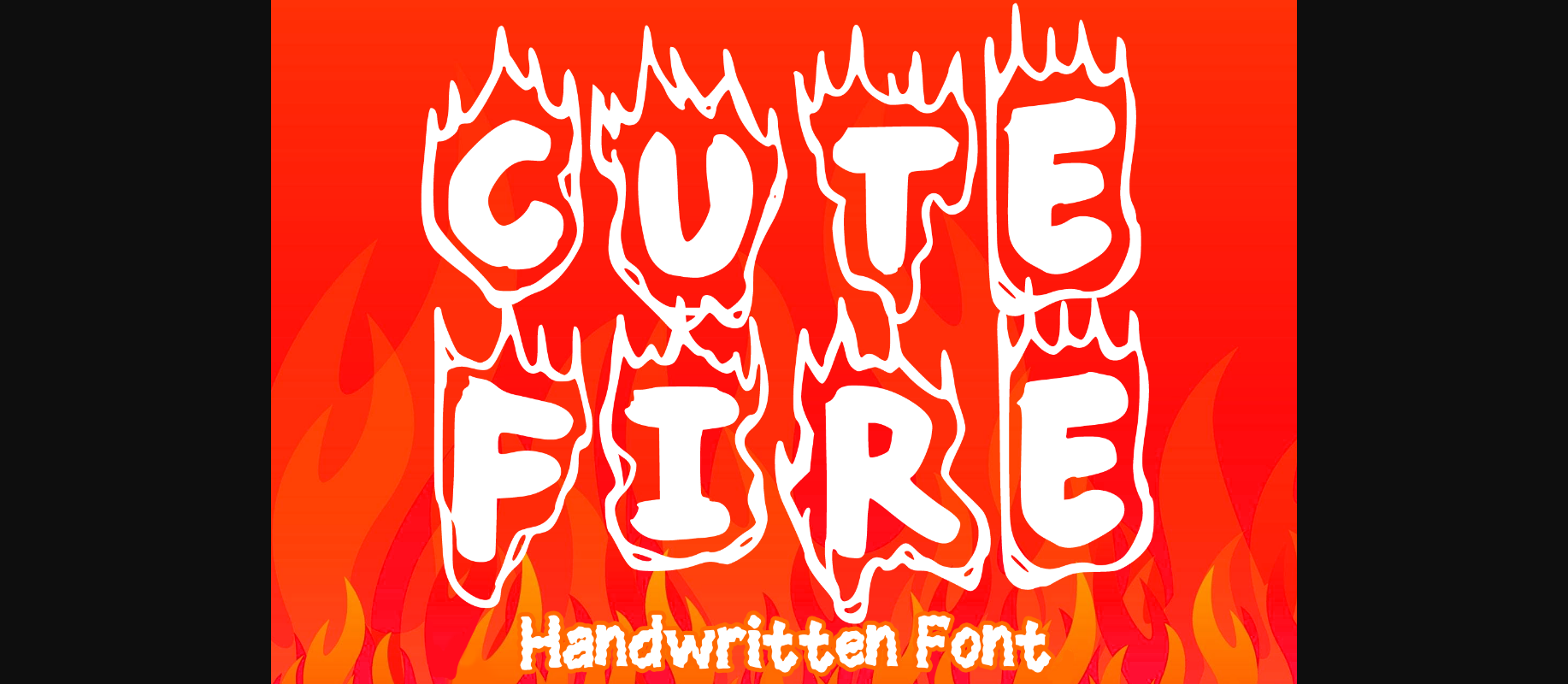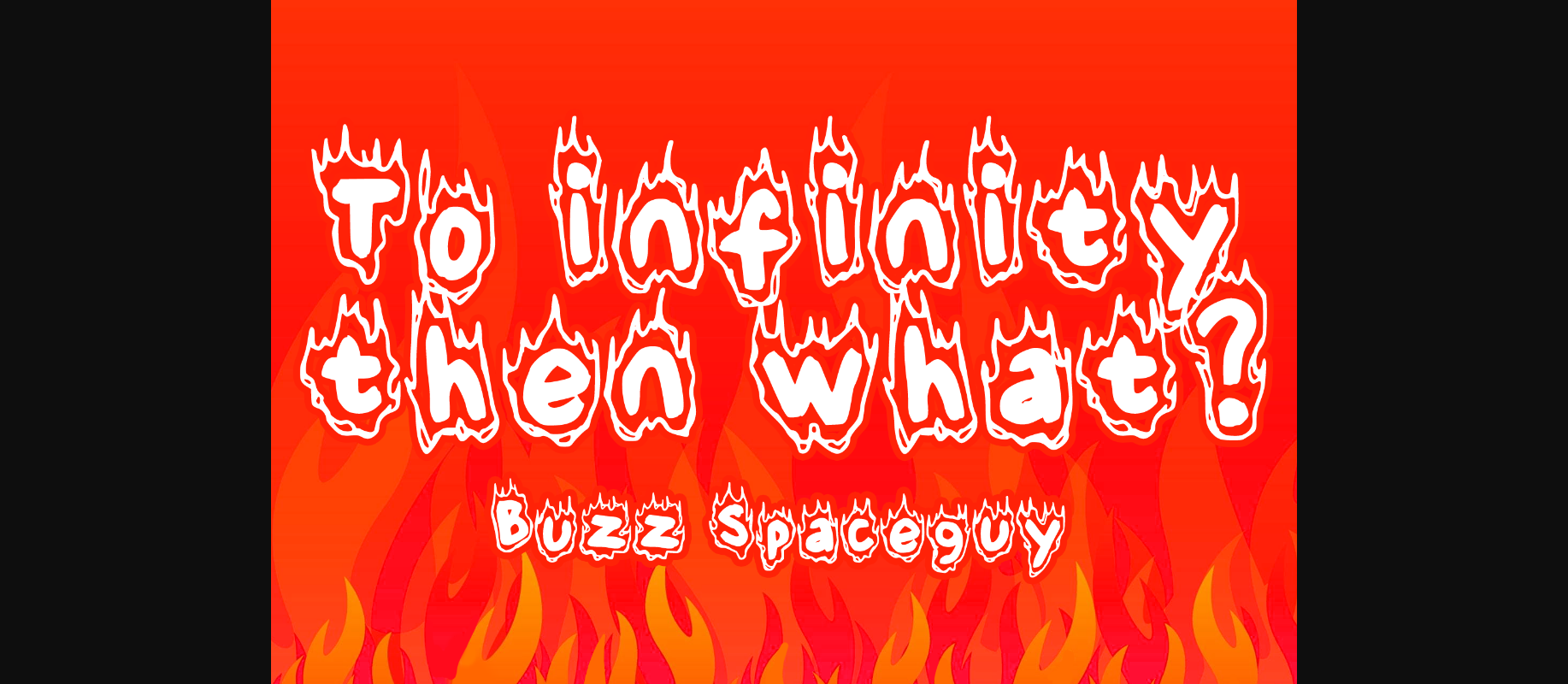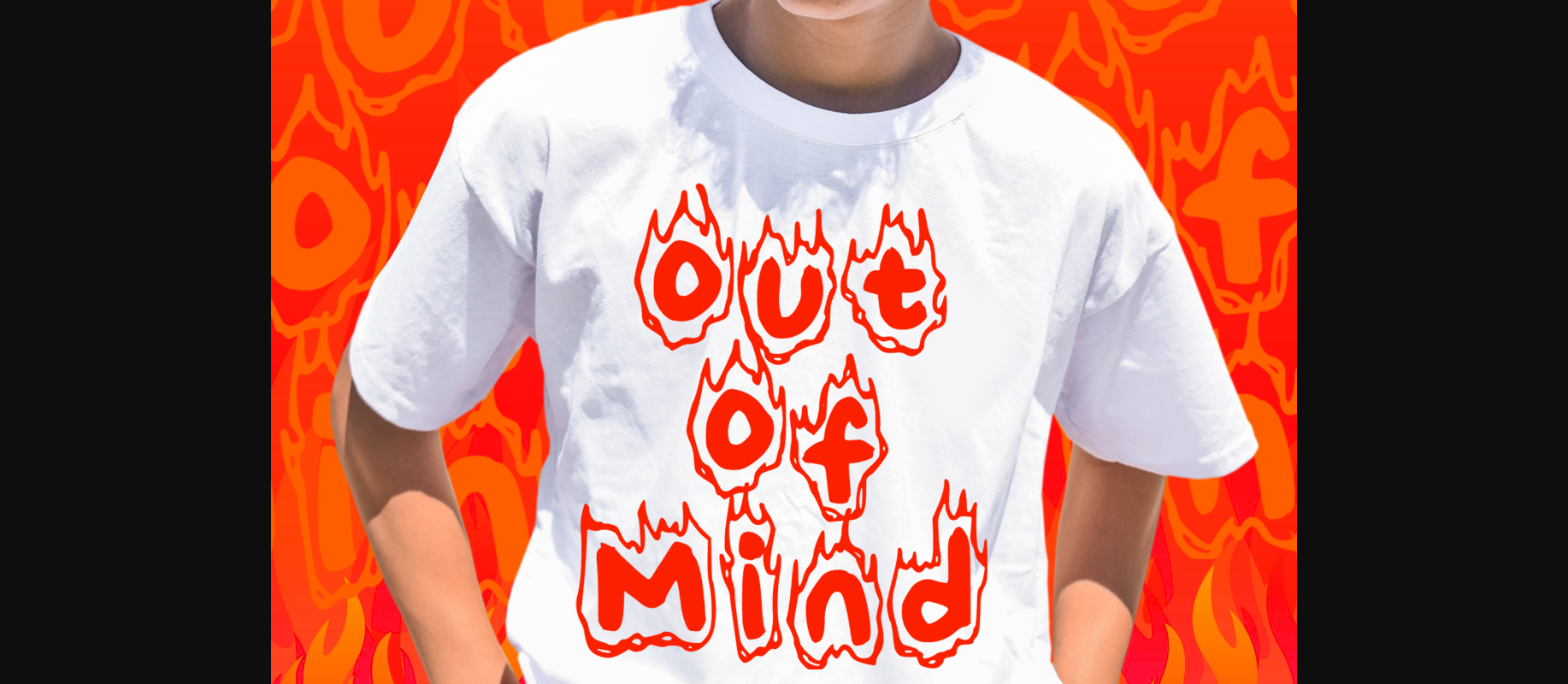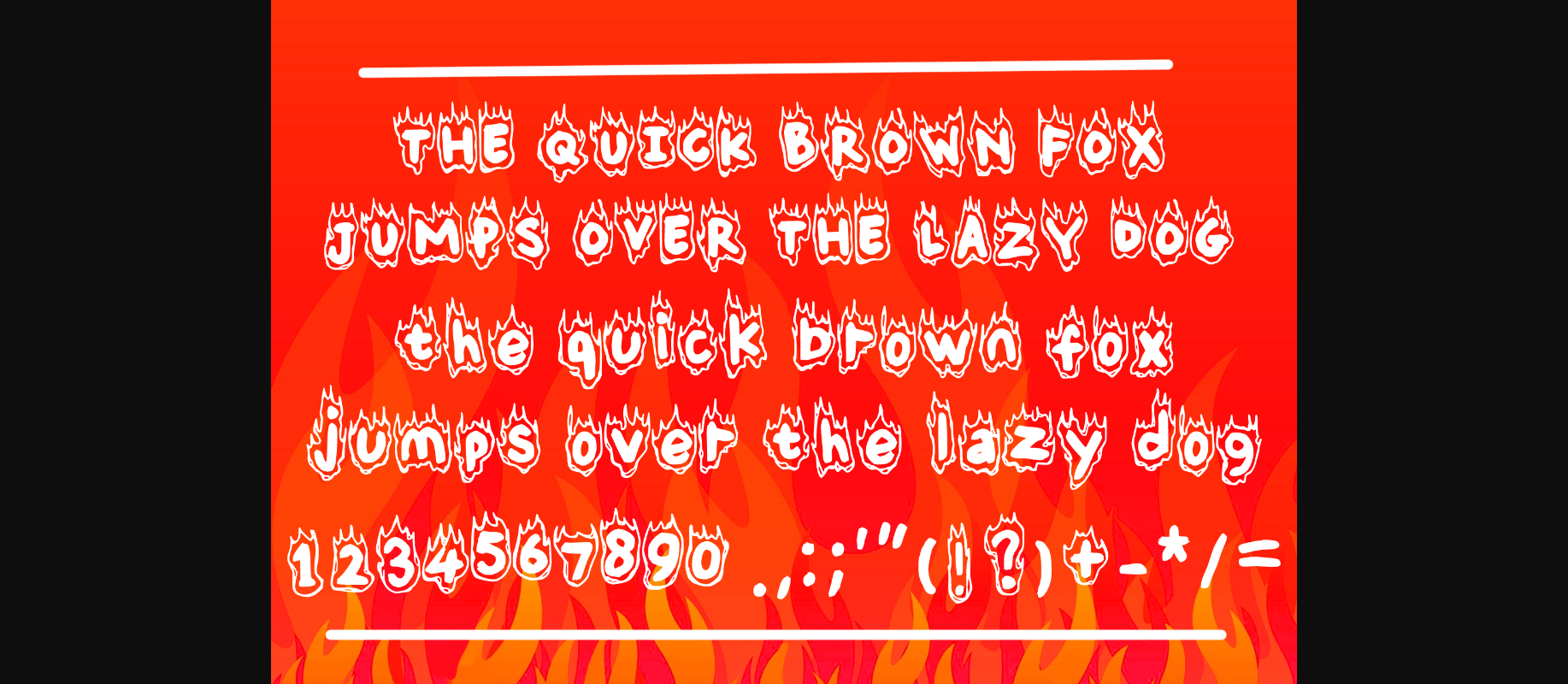
Cute Fire Font
About Cute Fire Font
Cute Fire is a cute display font with a fire decorative twist for your everything needs! You can use it for anything ranging from t-shirts and clothing, kid’s book designs, kid’s party needs, greeting cards, stickers, posters, banners, or anything that needs a decorative and fun touch. Try it to create fabulous designs and feel the fun and cheering vibes with it!